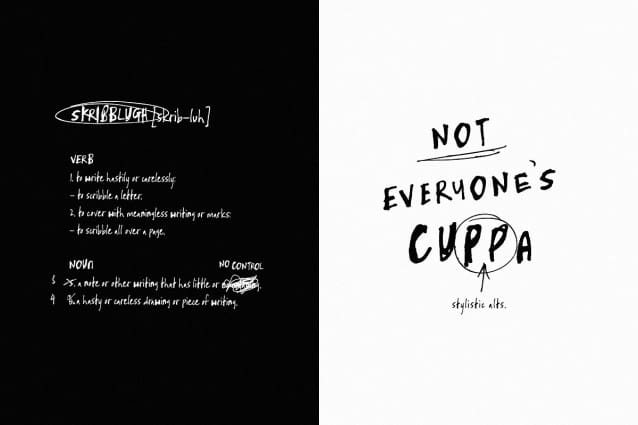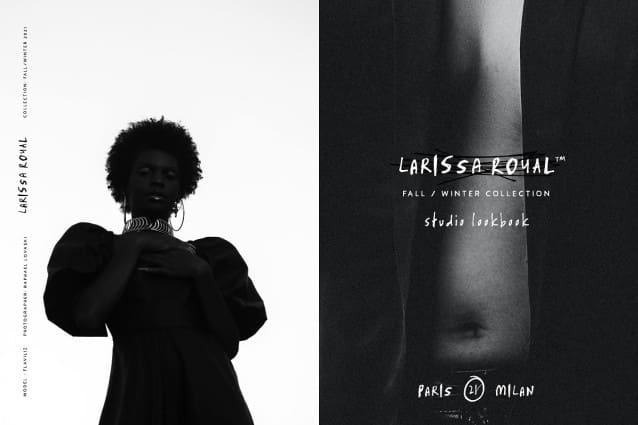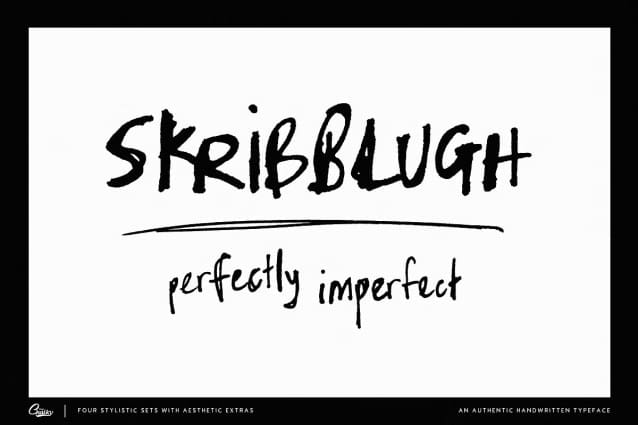
Skribblugh Brush Font
Skribblugh Brush Font. This was a creative experiment. Writing for a long period of time prior to starting erased any inhibitions that prohibited forming natural, authentic letters and by adding more duration the hands became sore and weak. Allowing minimal control, and a more eccentric outcome. It was a real slog, but totally worth it.
Skribblugh Brush Font is a wobbly, aesthetically pleasing and obviously handwritten typeface full of character and versatility. Within a modern design; It adds a human’s touch, a final note, a signature. And within a playful, colorful one it helps exaggerate the atmosphere, bringing playfulness and warmth to the center of the stage.
With four choices for every uppercase and lowercase letter, there are plenty of opportunities to make designs look personal and relatable!